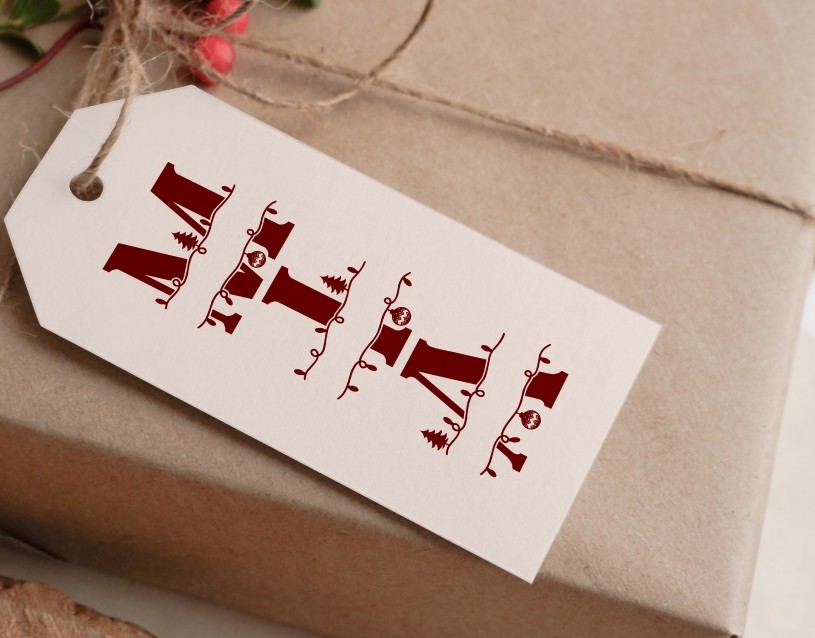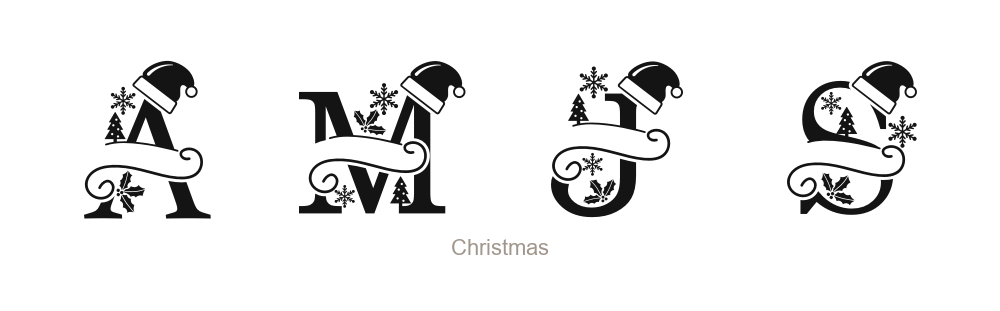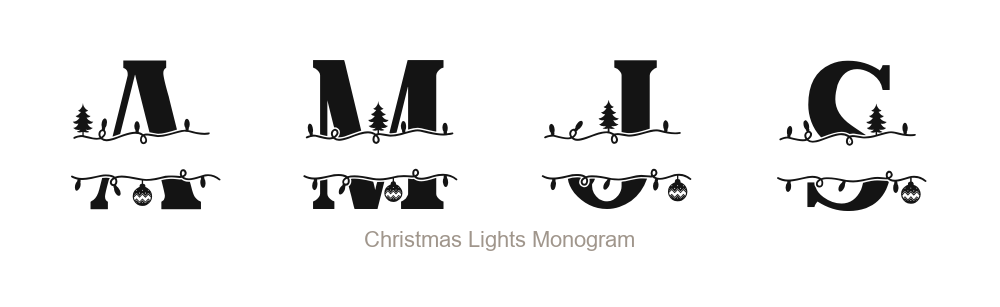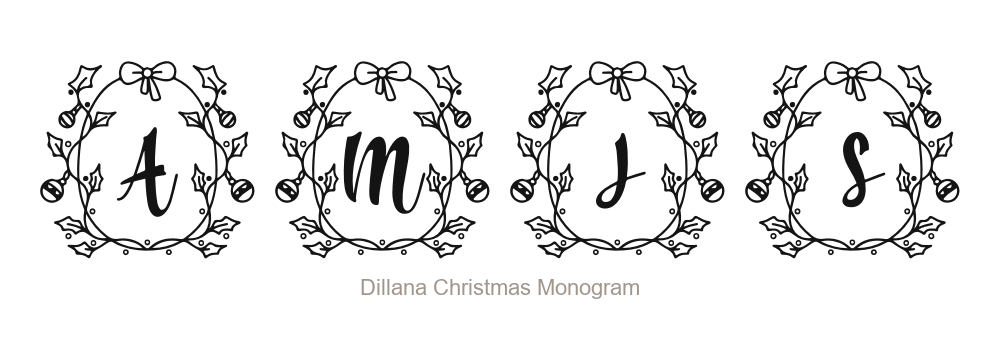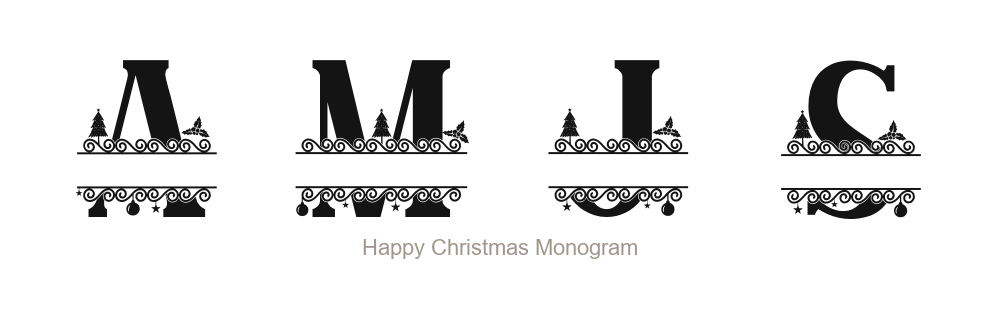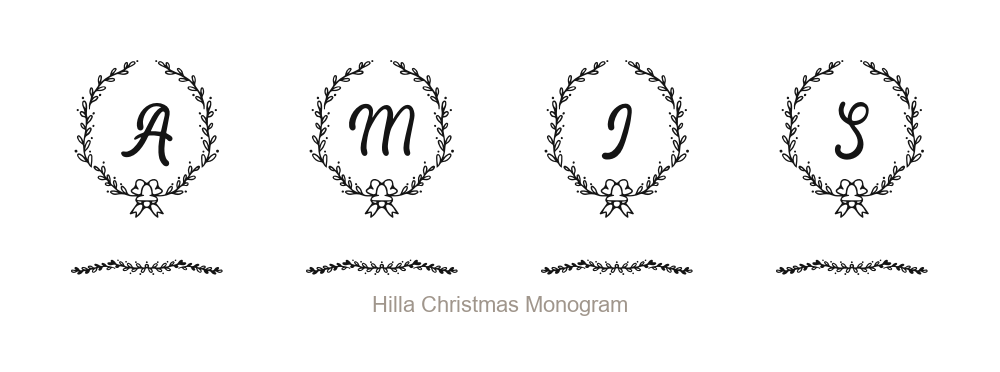
Christmas gift wrapped in brown paper with a white tag featuring a red festive monogram.
Monogram fonts are a different type of decorative font from regular display text fonts. Instead of typing words, each key outputs a single decorative letter that is usually framed inside a wreath, ornament, or other illustrated element. You type one letter and you get a fully designed monogram that is ready to use. They’re perfect for personalised Christmas gifts, especially if you’re using a cutting machine like a Cricut or designing print-on-demand products.
Some ideas for what you can make with these fonts: personalised Christmas ornaments with a family initial, gift tags with the recipient’s first letter, stockings embroidered or printed with a monogram, wrapping paper with a repeating initial pattern, tote bags, mugs, greeting cards, and holiday stationery. They also work well for Cricut projects where you cut the letter out of vinyl or card stock.
Here are five free Christmas monogram fonts with commercial licenses, meaning you can use them for products you sell, not just personal projects.
Dillana Christmas Monogram
Dillana Christmas Monogram frames each letter inside an oval wreath decorated with holly, bells, and a bow at the top. The letters inside are written in a casual handwritten script, which gives it a handmade look. It’s one of the more detailed options in this list
This one would work especially well for gift tags, greeting cards, and anything where you want something that looks hand-crafted. It would also be a good choice for a Cricut project where you’re cutting the full monogram shape out of patterned paper or card stock.
Hilla Christmas Monogram
Hilla Christmas Monogram uses a simple circular wreath of twigs and leaves with a small bell and bow at the bottom. It’s the most minimal and understated font in this roundup. The letters inside are in a pretty script.
I think this would suit wedding-adjacent Christmas projects like Christmas wedding stationery, upscale holiday gift wrapping, or a monogram for a gift to someone who prefers a more refined aesthetic.
Happy Christmas Monogram
Happy Christmas Monogram is a more classic split monogram font. The letter is divided horizontally with a decorative banner across the gap where you can add a name or word. The top half of each letter features Christmas tree and some Christmas ornaments. Split monogram fonts are specifically designed to have text inserted into the middle section, making them popular for personalised gifts where you want both an initial and a name.
This style is widely used for Cricut vinyl projects, printed Christmas stockings, and personalised ornaments. The split design is also what makes it good for print-on-demand as you can put a customer’s initial on one product and their name in the banner gap.
Christmas Lights Monogram
Christmas Lights Monogram is another split monogram serif font, but the decoration here is string lights, a Christmas tree and ornament. This has a more playful vibe.
This would be a good pick for more fun and novel designs.
Christmas Font by Lakai
Christmas Font by Lakai is another split monogram, but it’s more decorative. Each letter comes with a Santa hat perched on top, a snowflake, a Christmas tree, and different Christmas themed elements woven into the design.